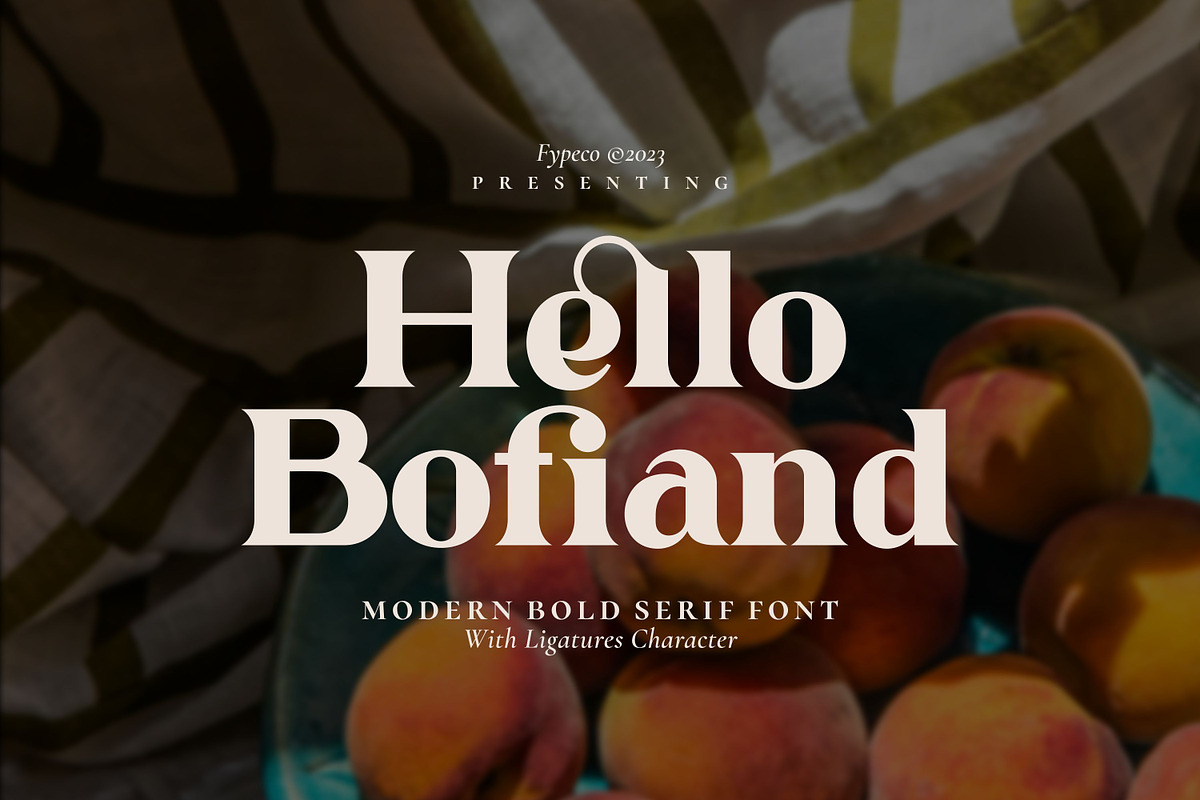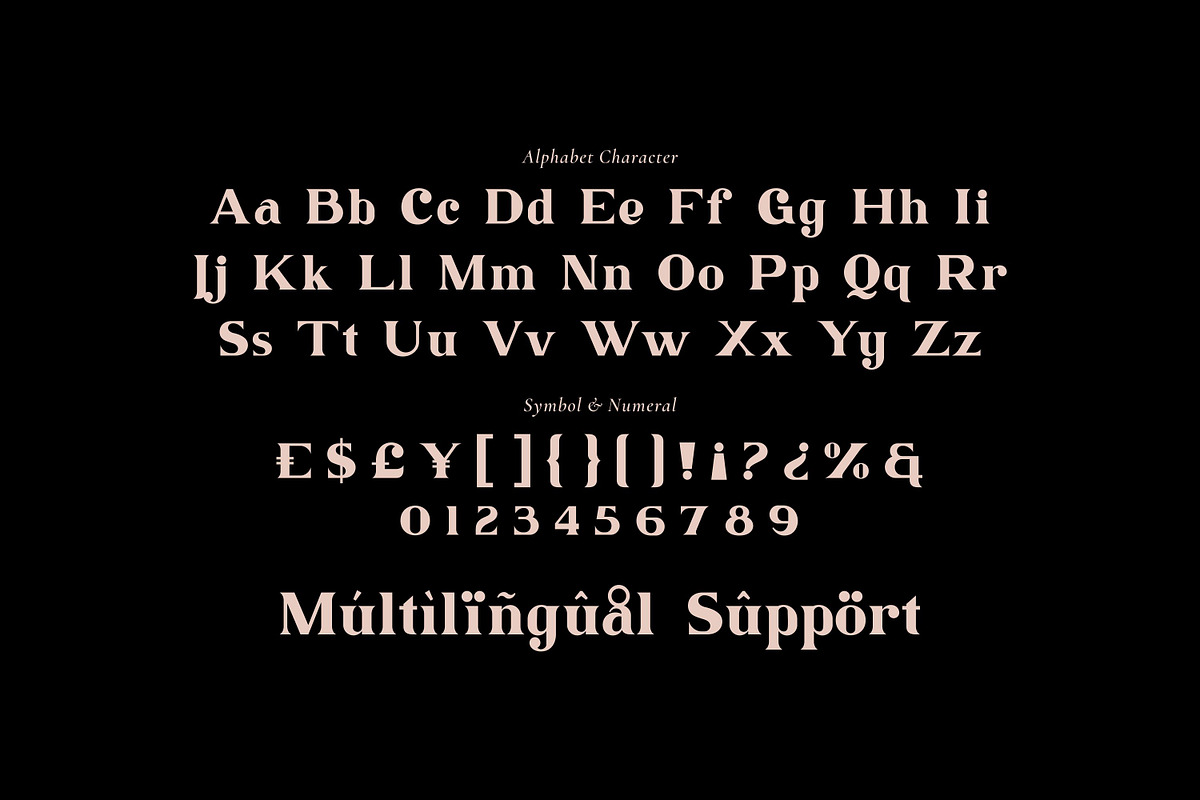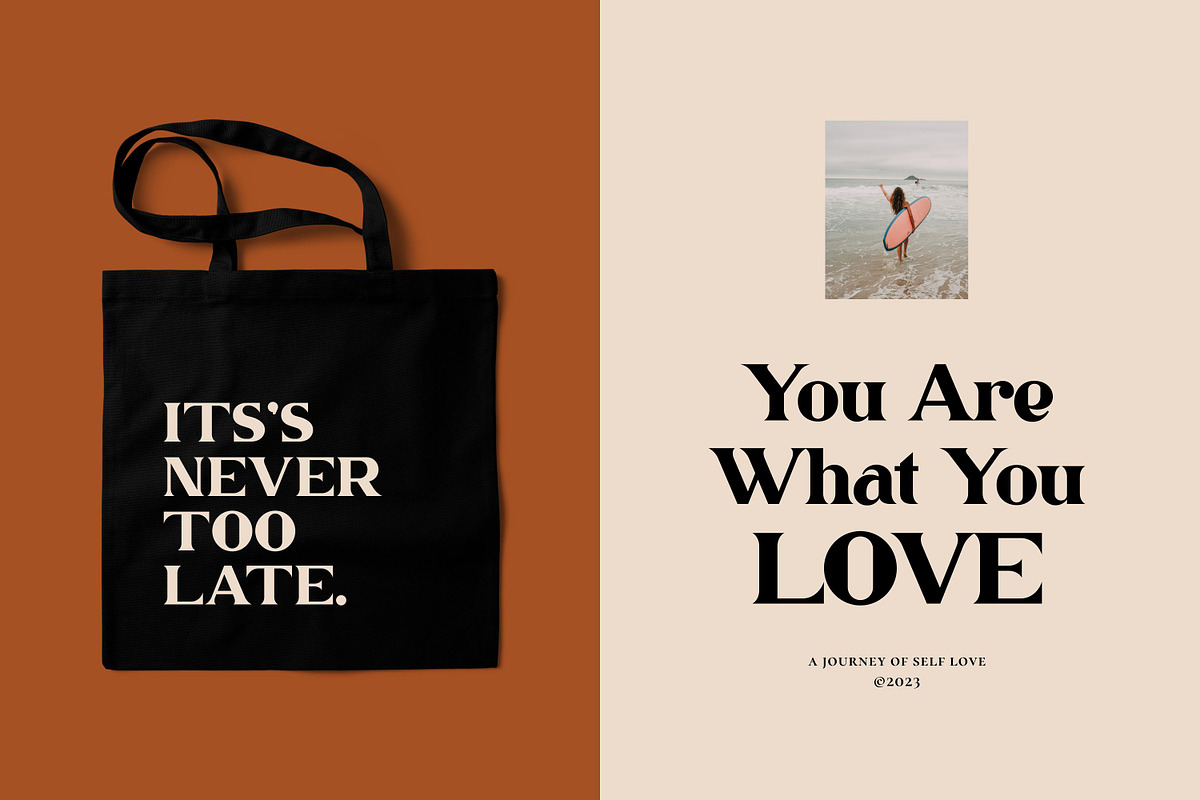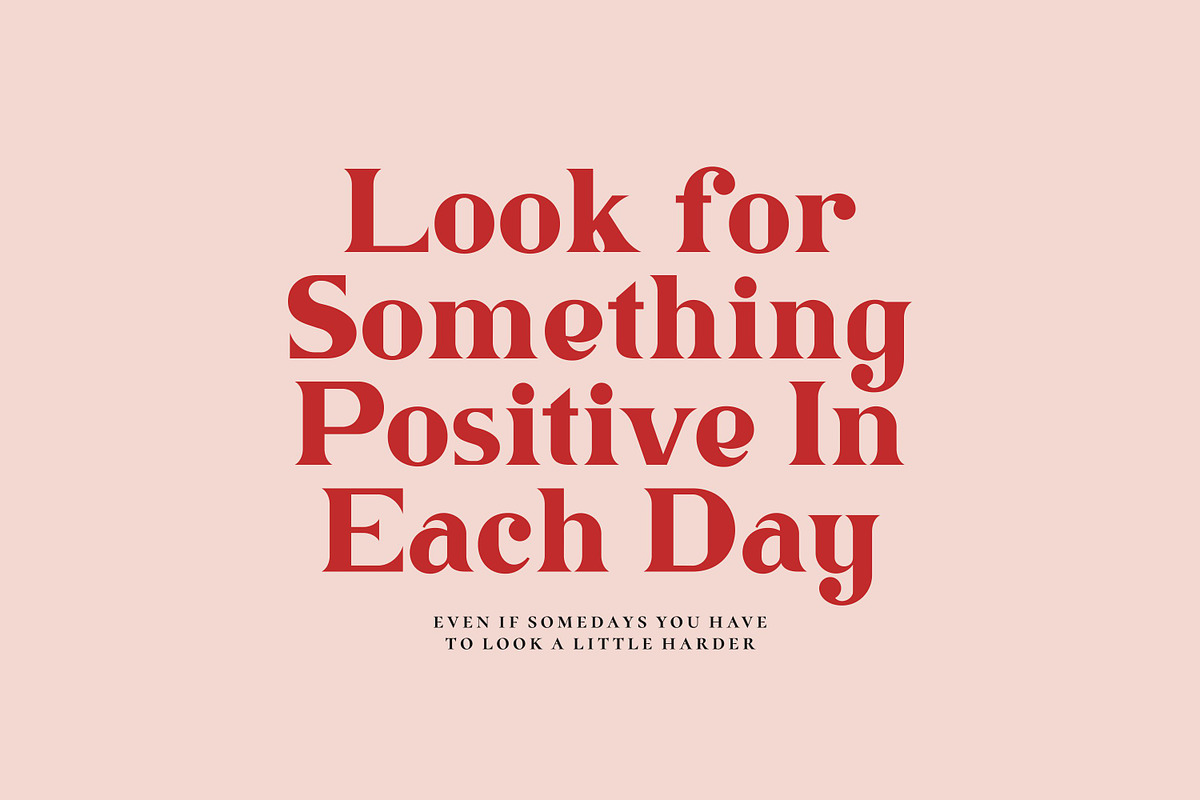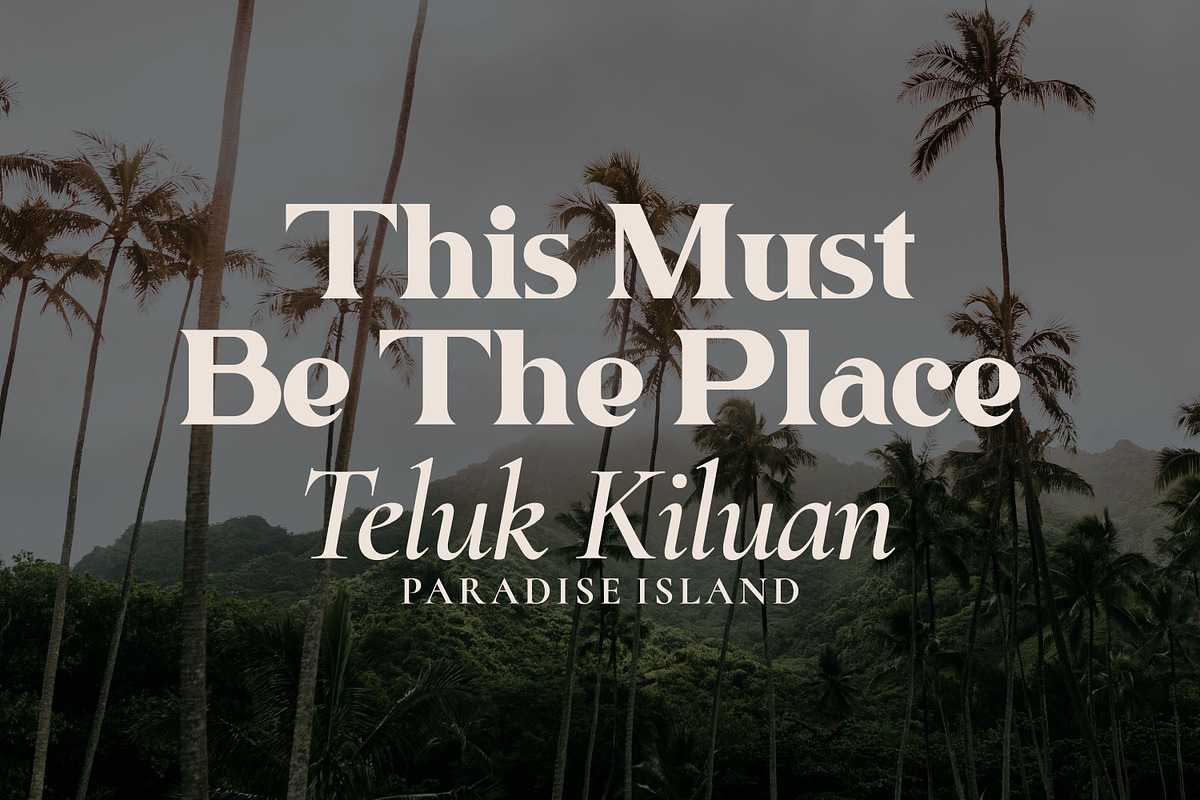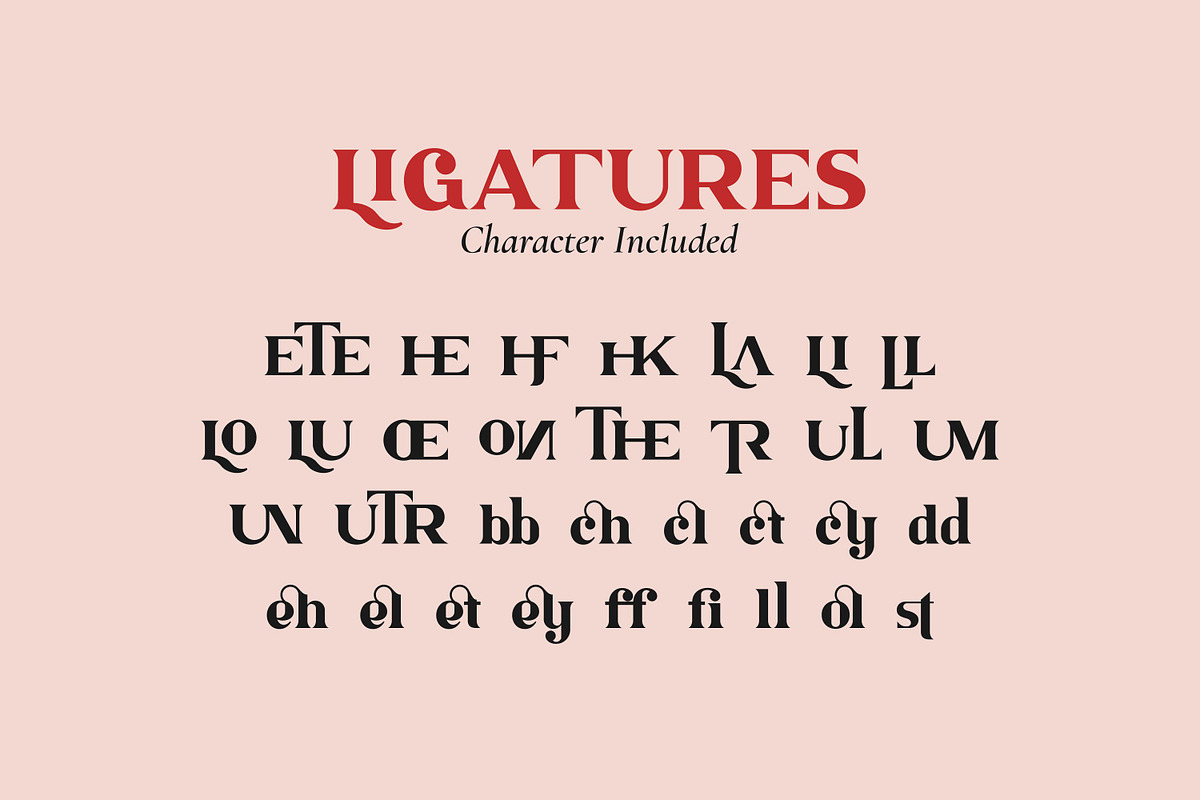
Hello Bofiand - Modern Bold Serif
Hello Bofiand is modern bold serif font with lot of ligatures. Suitable for logos, branding, master signs, headlines, quotes, products and other designs.